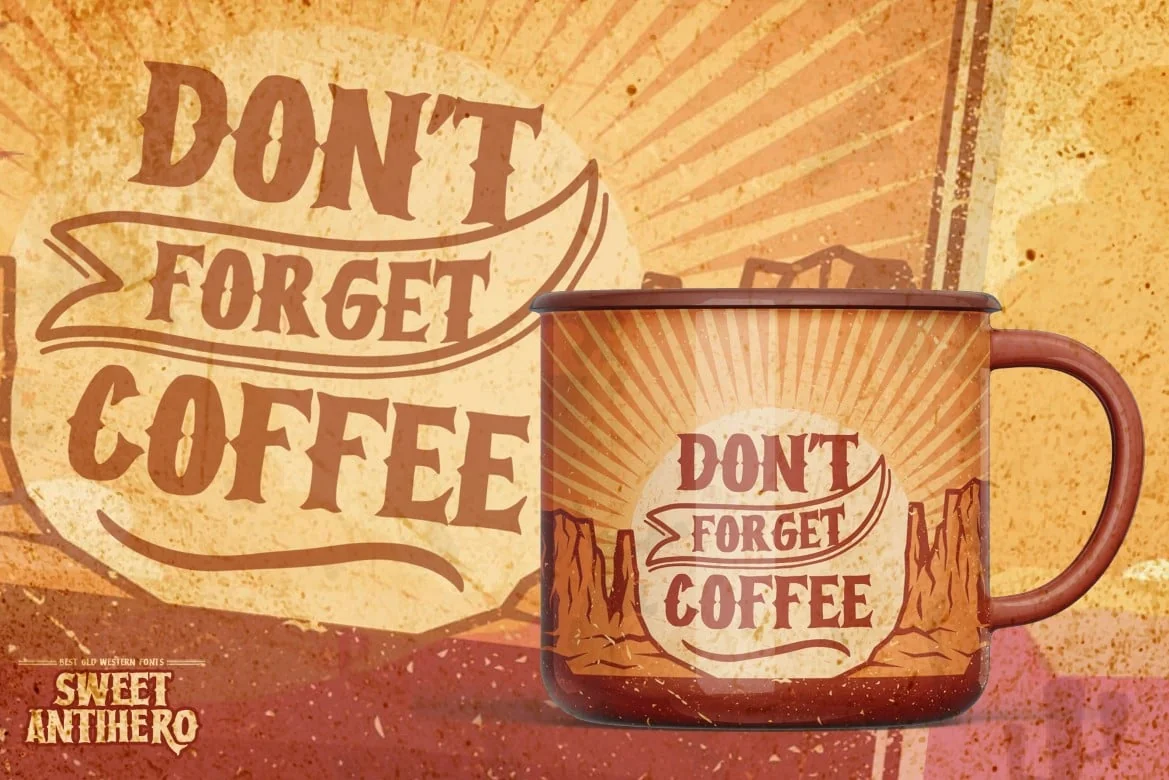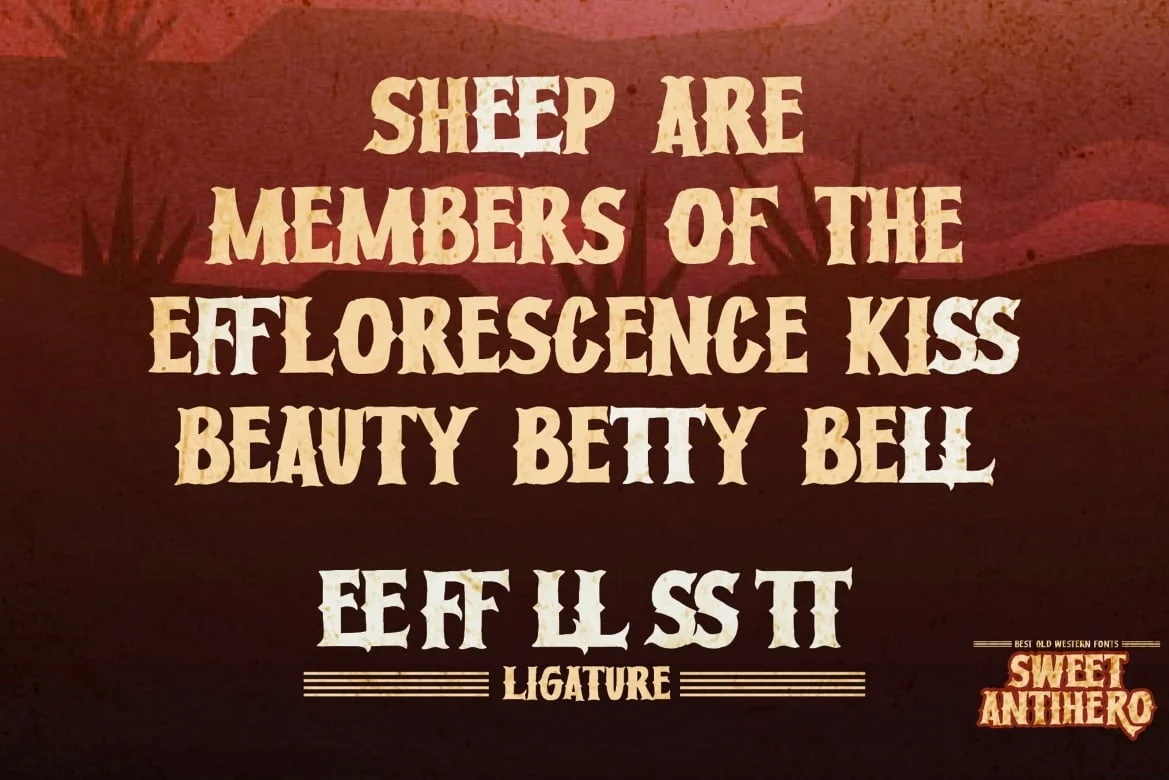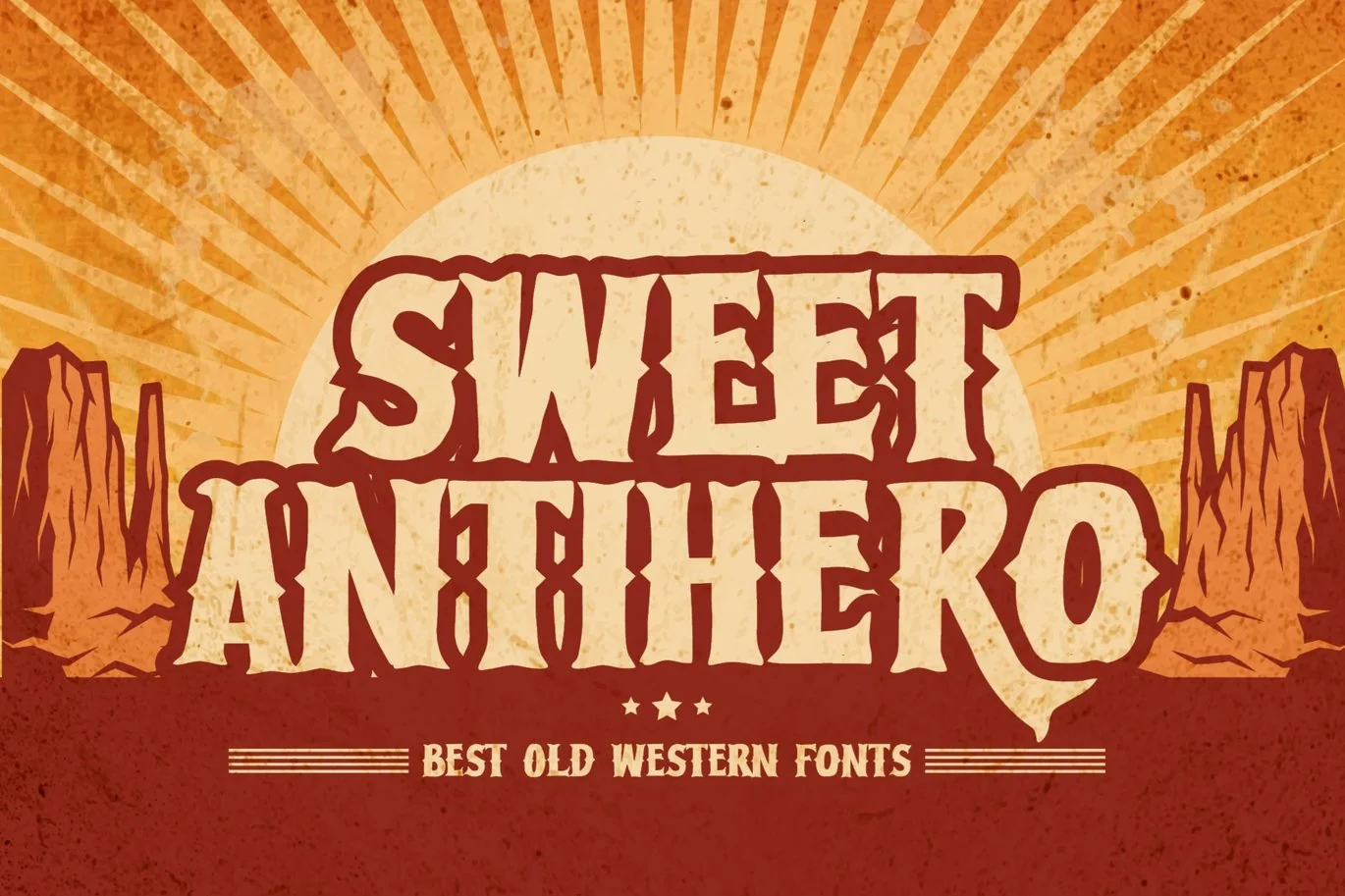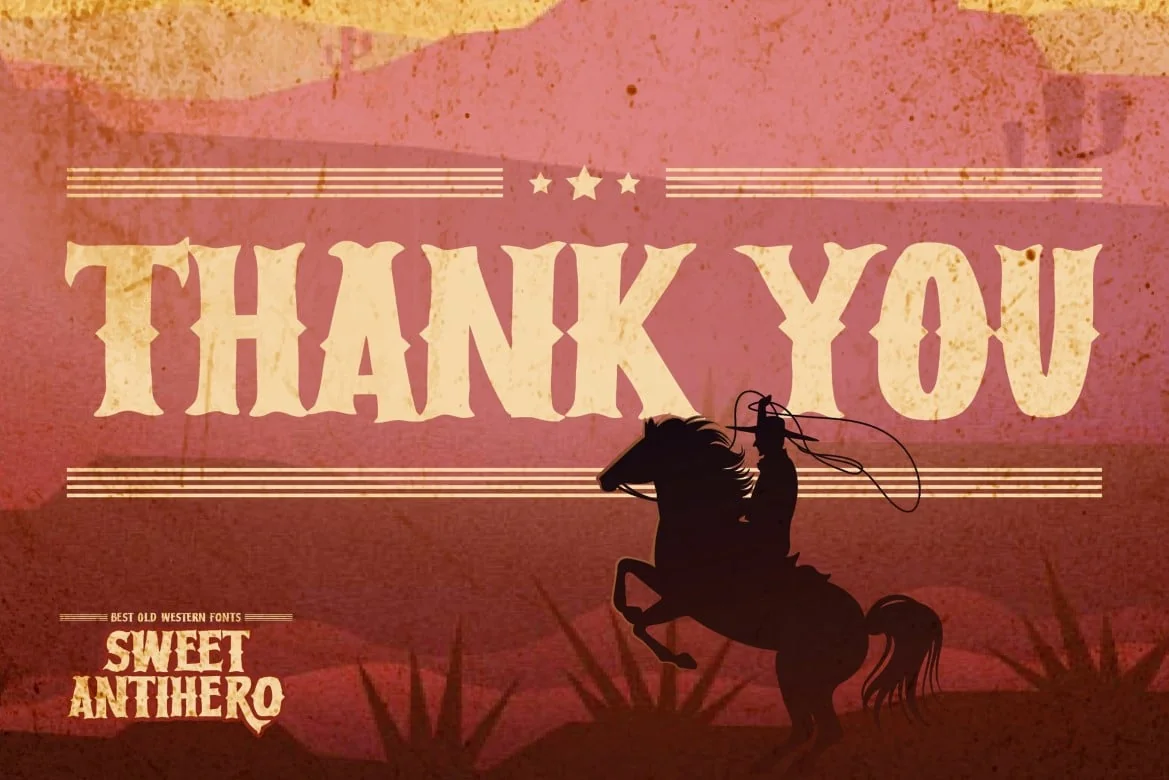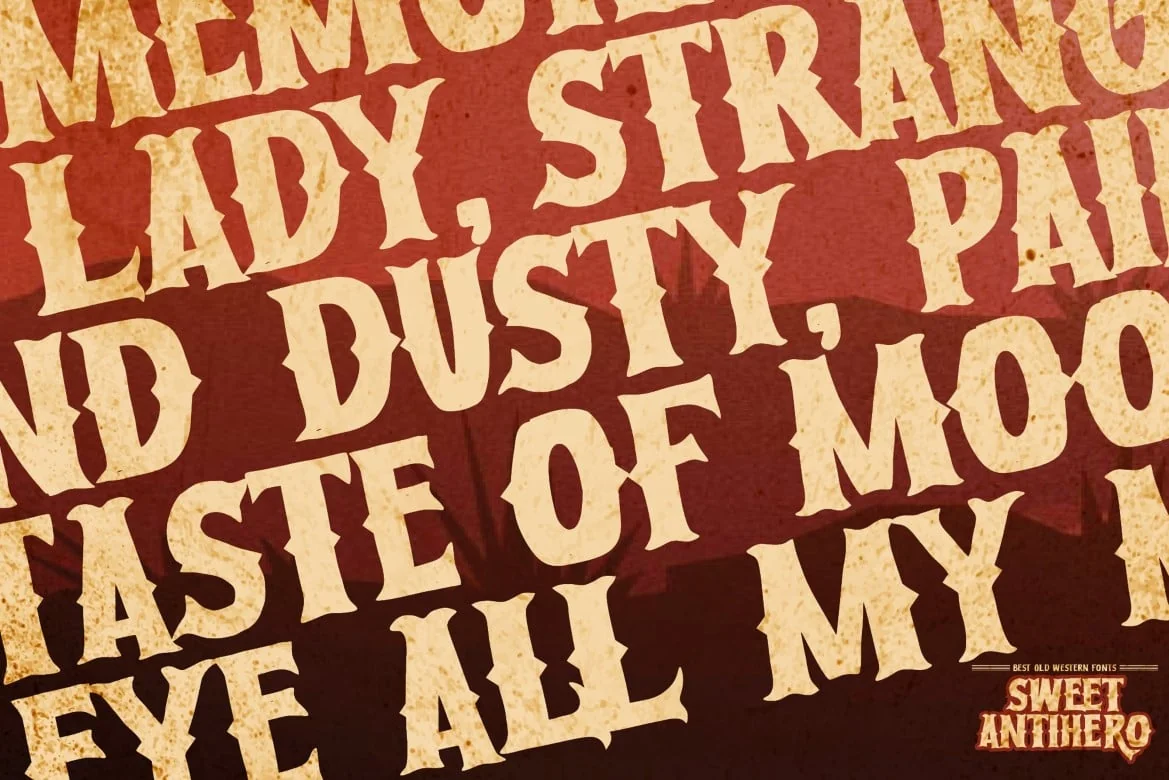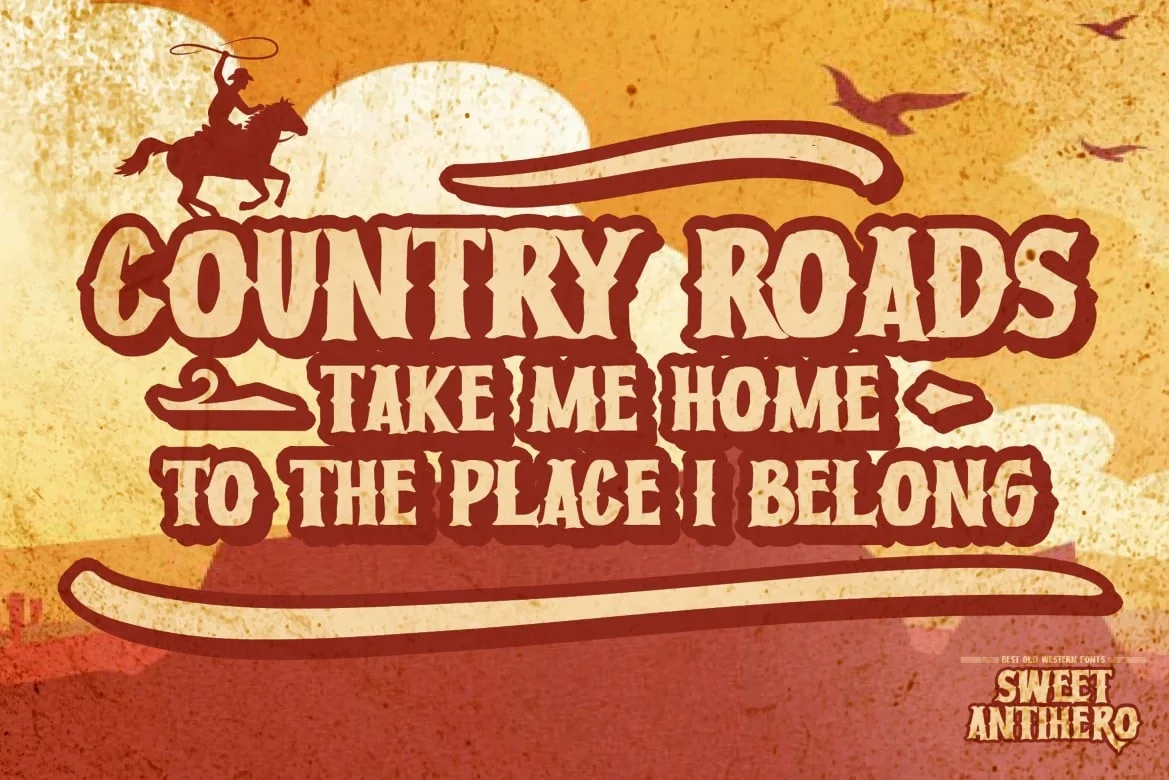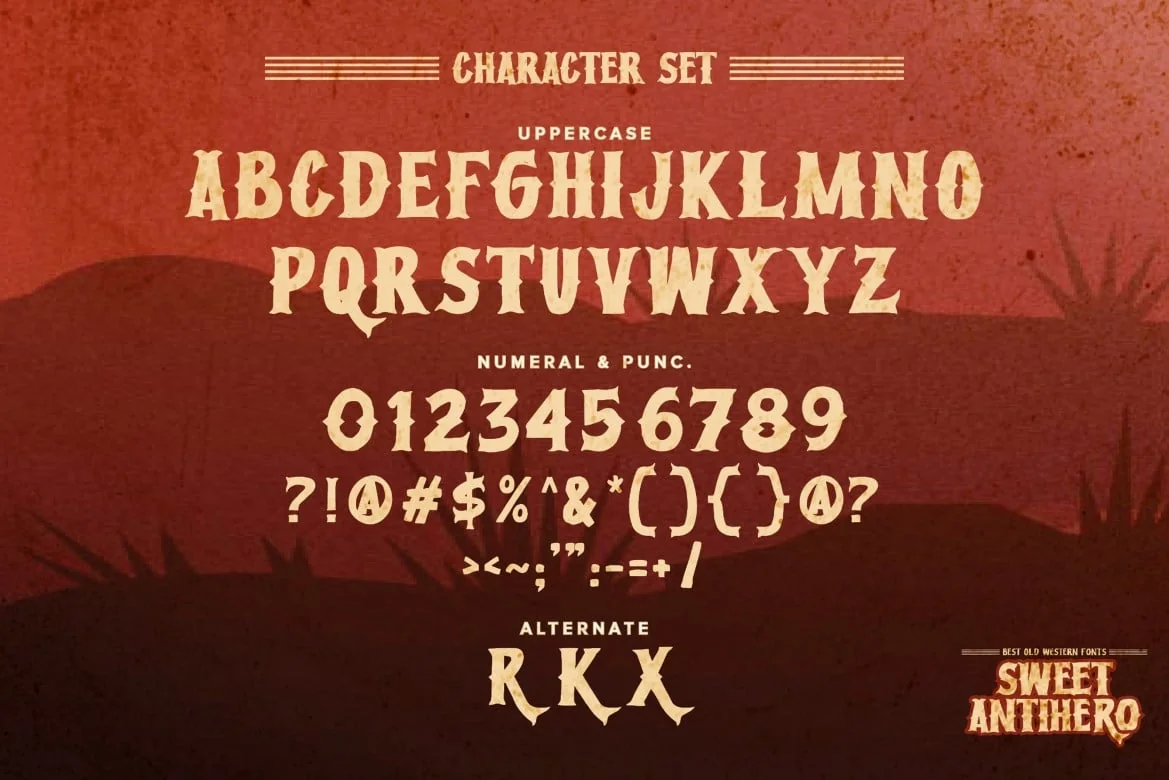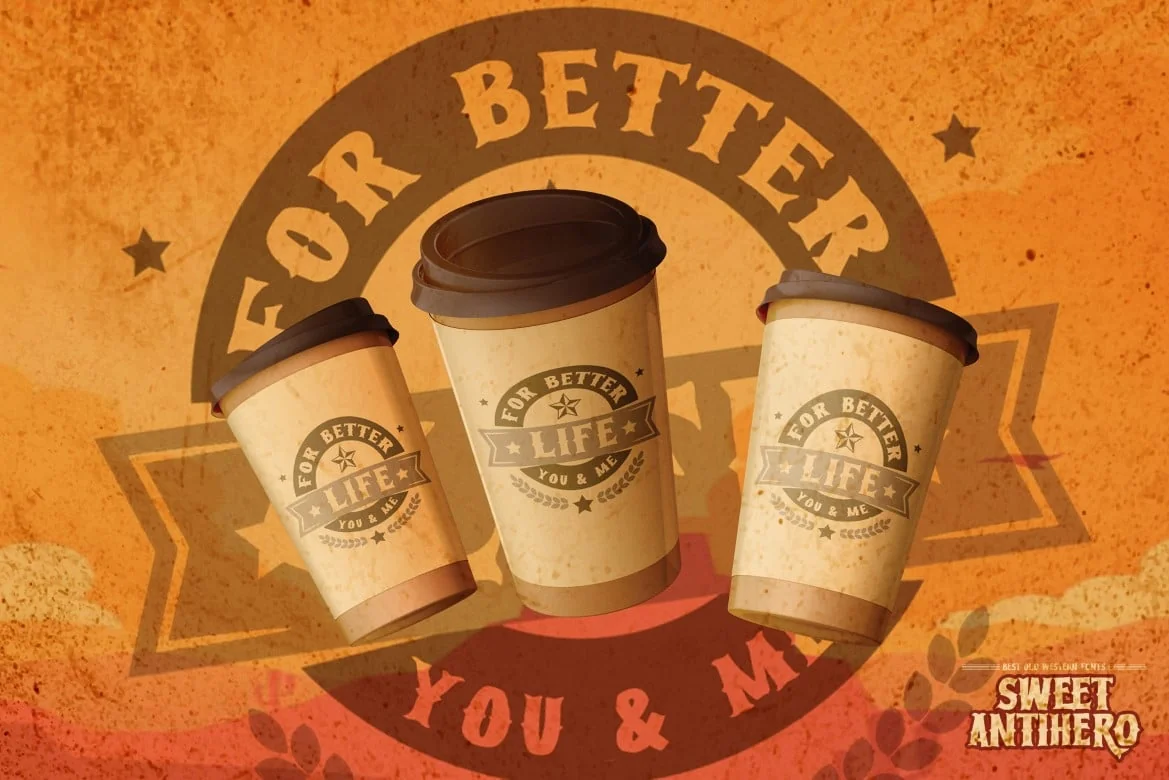
Sweet Antihero – Vintage western Font
meet = Sweet Antihero – Vintage Western font
this is bold, strong vintage handwritten western-looking display font.
This font is great for your next creative project such as logos, printed quotes, invitations, cards, product packaging, headers, Logotype, Letterhead, Poster, Label, and etc.